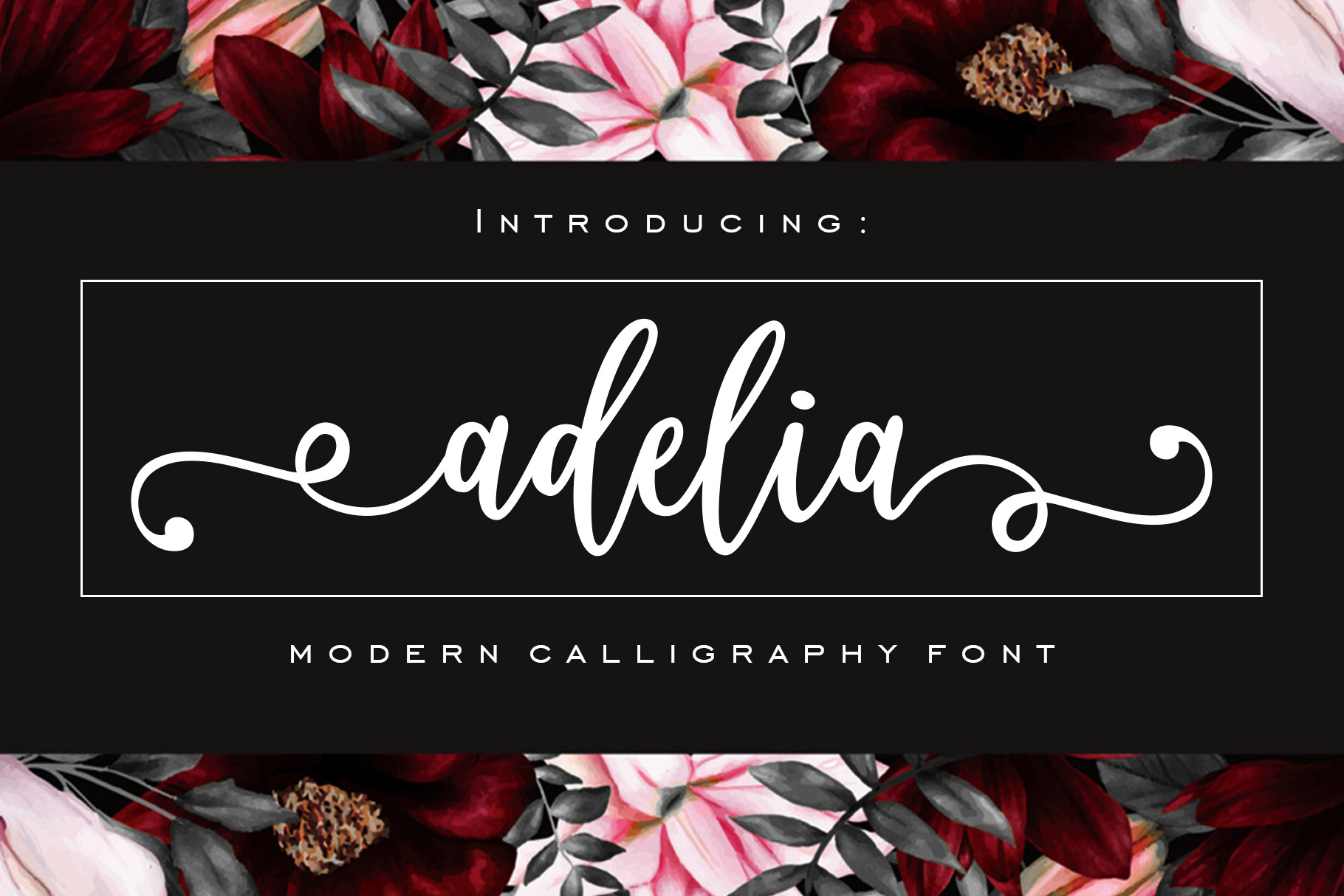
Adelia - Modern Calligraphy Font
Adelia is a beautiful and luxurious calligraphy font, a mix of modern and classic art, with lots of curves and additions for your choice, it will look awesome on any project you are about to work on. make sure you try it and prove that it will be amazing!